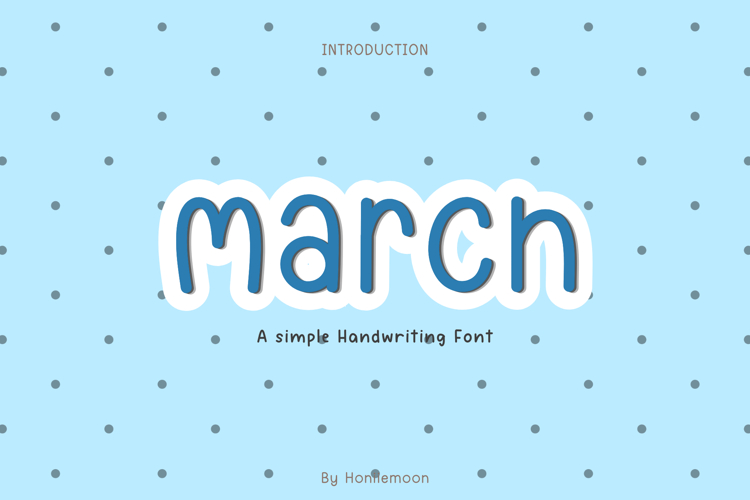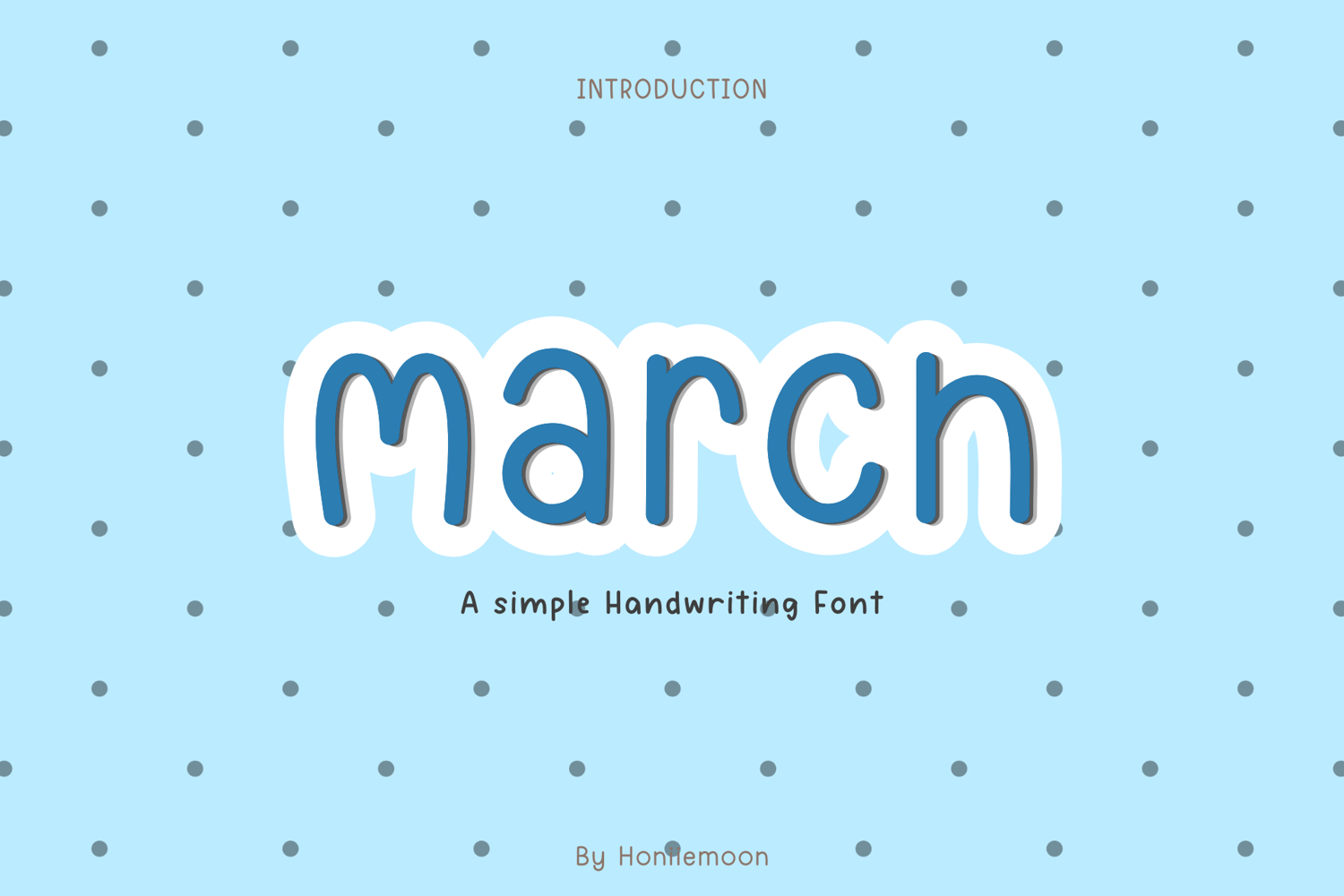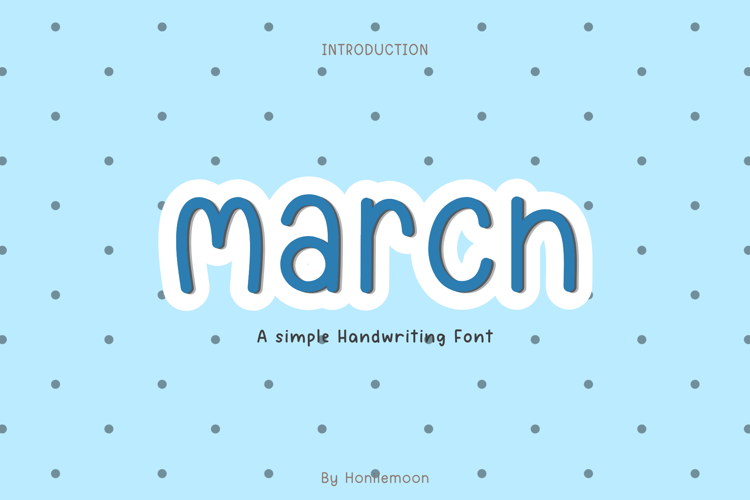
March is a simple and cute handwritten font designed to bring a natural, friendly, and relaxed feel to your creative projects. This clean handwriting font is easy to read and perfect for both digital and print designs.
Whether you're designing planner pages, printable worksheets, motivational quotes, or cute merchandise, this font will add a warm and touch to your designs.